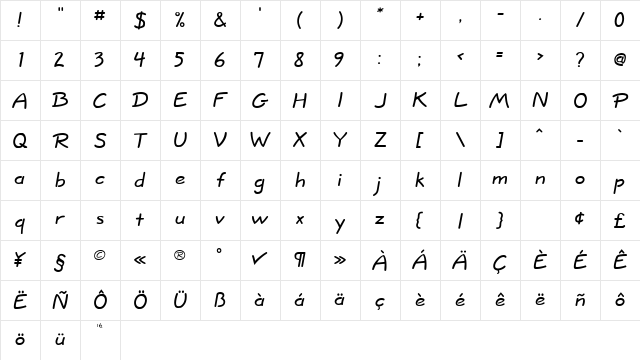
Complete Hopalong Bold glyph index. Displaying only characters natively supported by Hopalong Bold font.
Hopalong is a composed and adaptable typeface that performs quietly and consistently across a wide range of design contexts. Its bold stroke weight gives it real presence on the page.